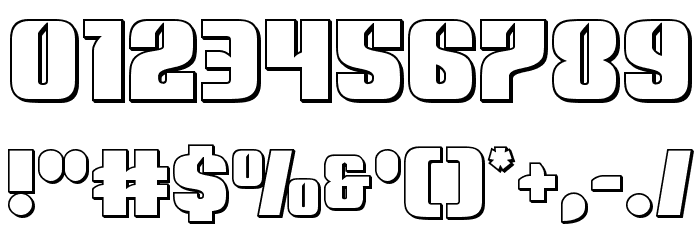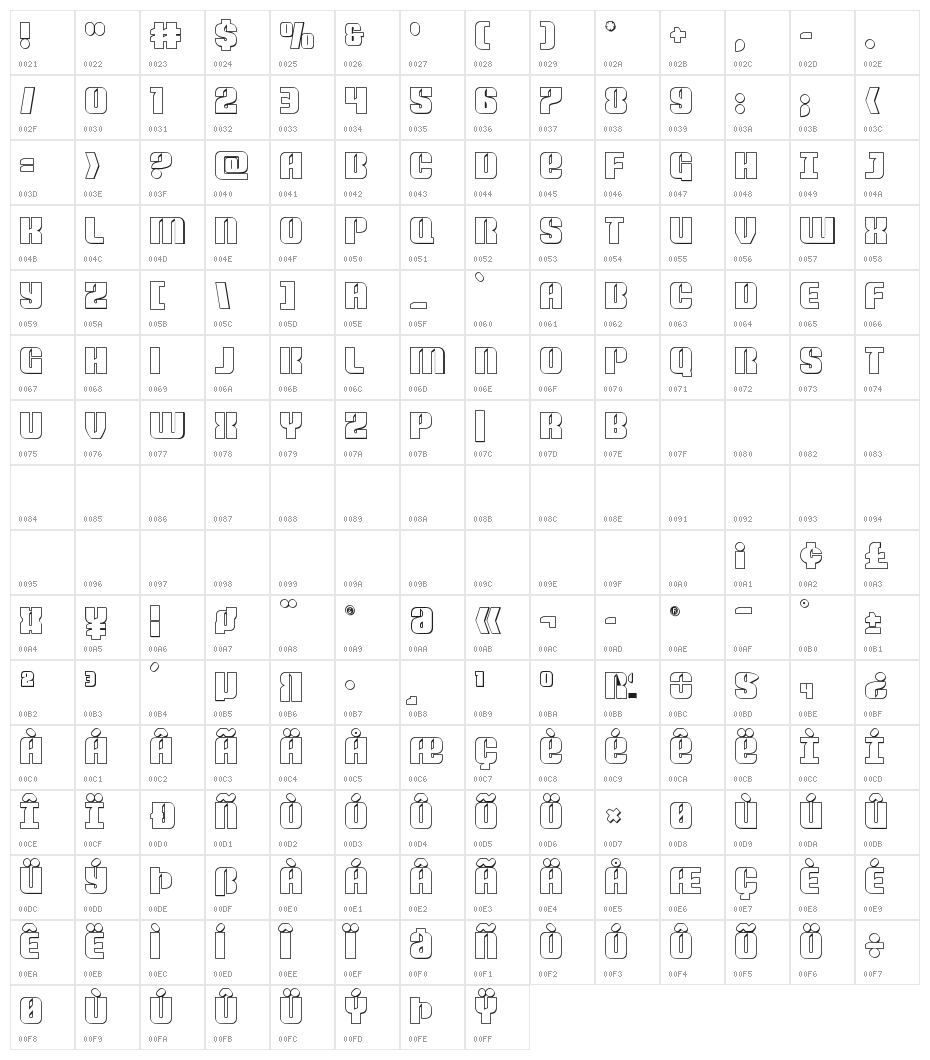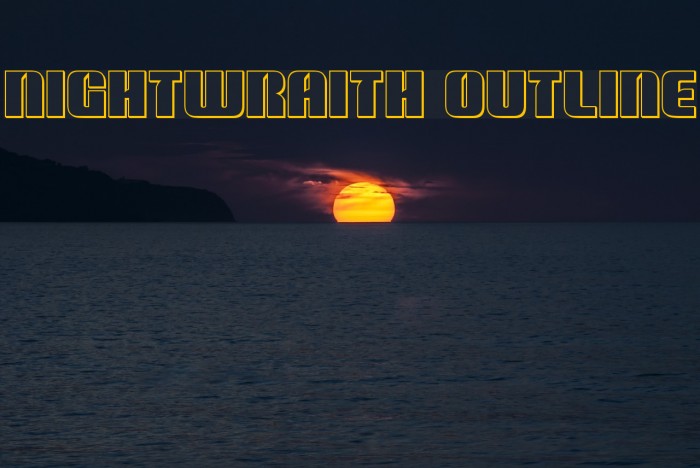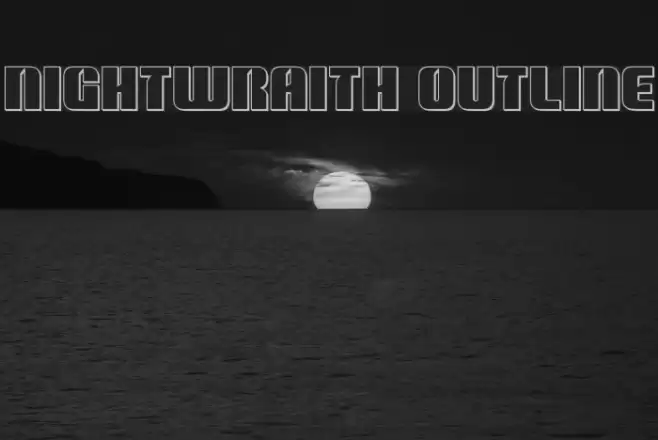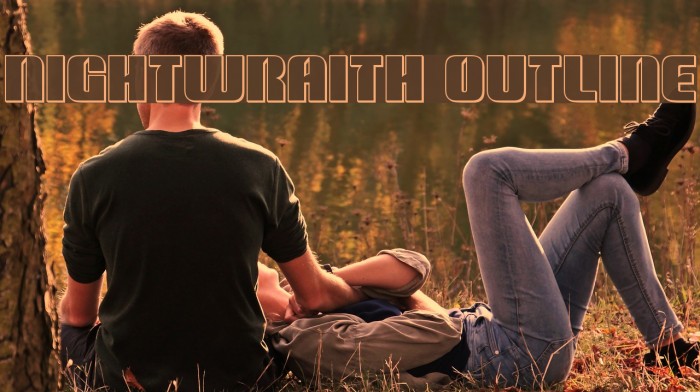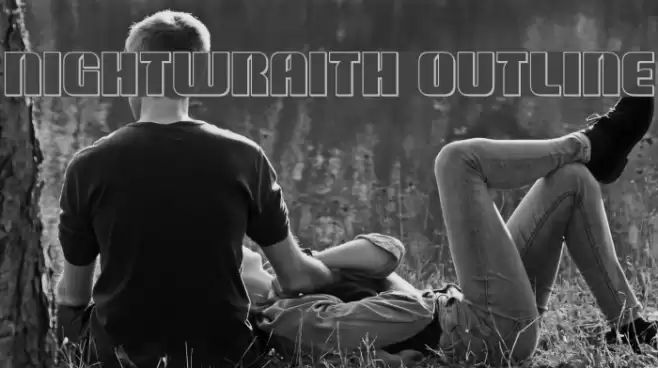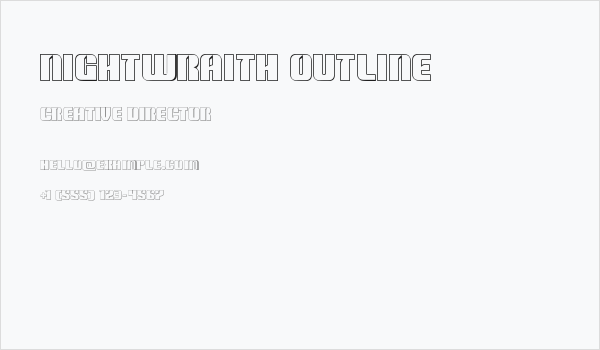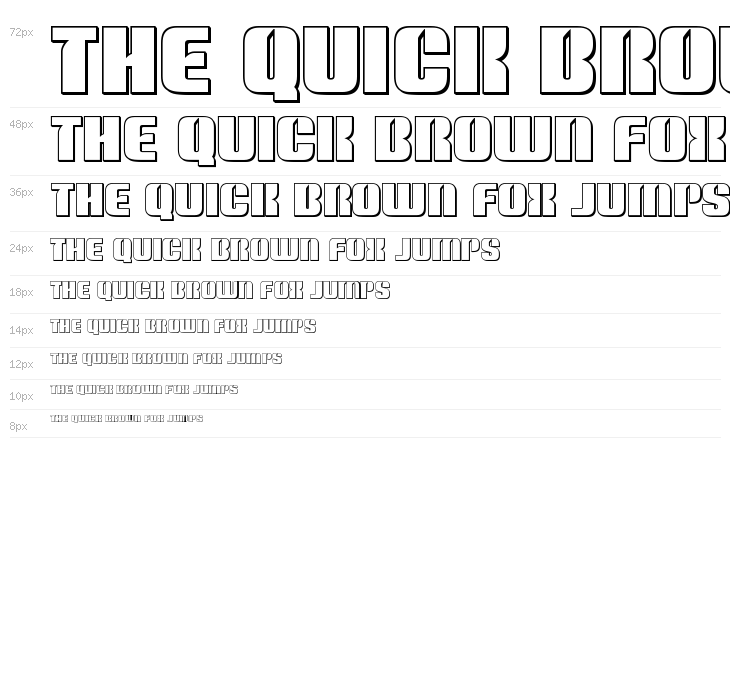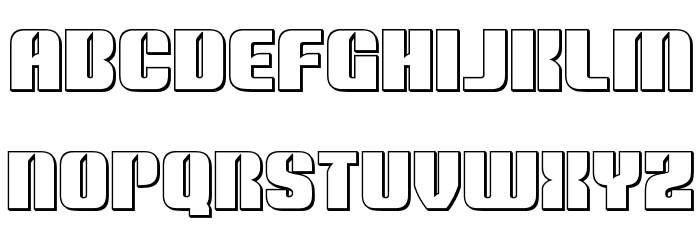
Nightwraith Outline Font
Nightwraith Outline Description
This font features a bold, geometric outline style that gives it a strong and impactful appearance. The characters are constructed with thick lines that form a hollow interior, creating a striking visual effect. The design is consistent across uppercase, lowercase, numbers, and special characters, maintaining a cohesive look. The font's structure is clean and modern, with a slight retro influence, making it versatile for various design applications. Its boldness and clarity ensure readability while adding a unique aesthetic to any project.